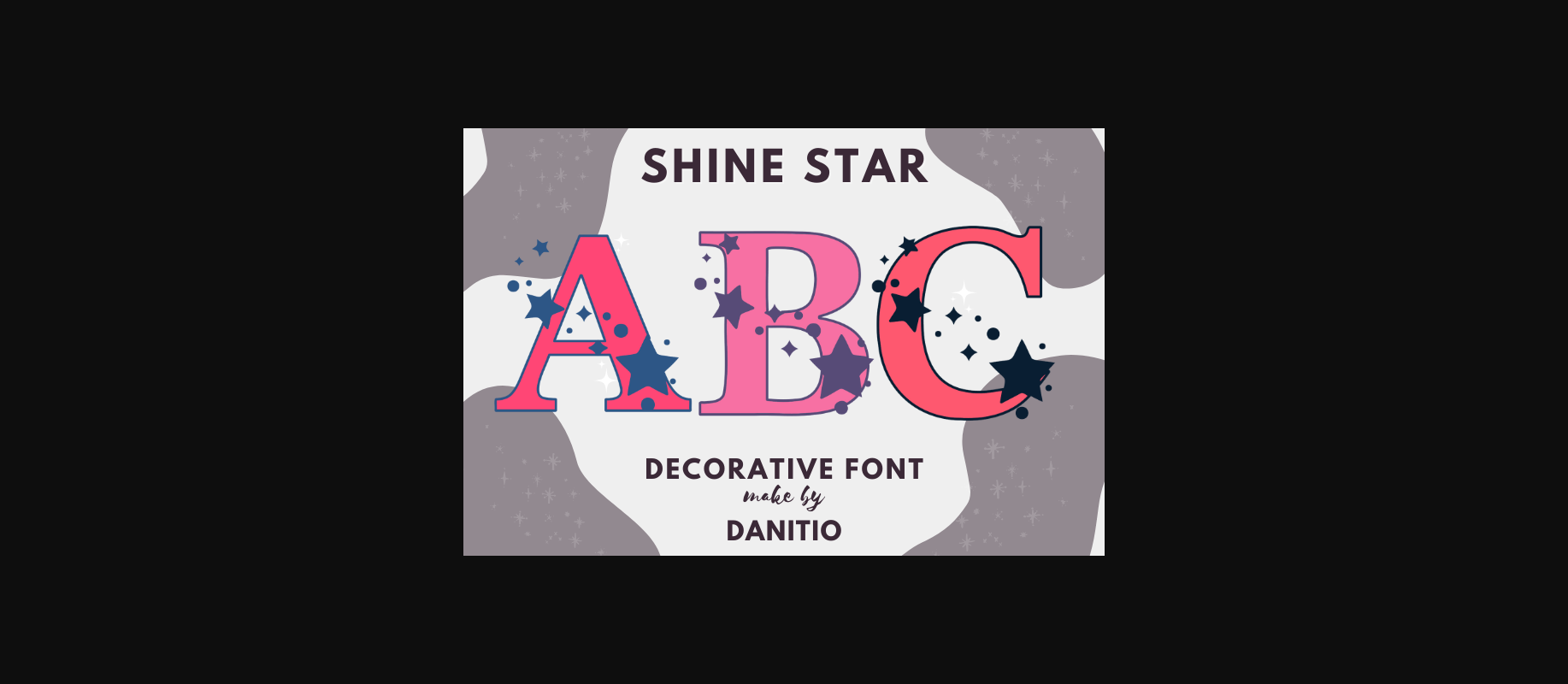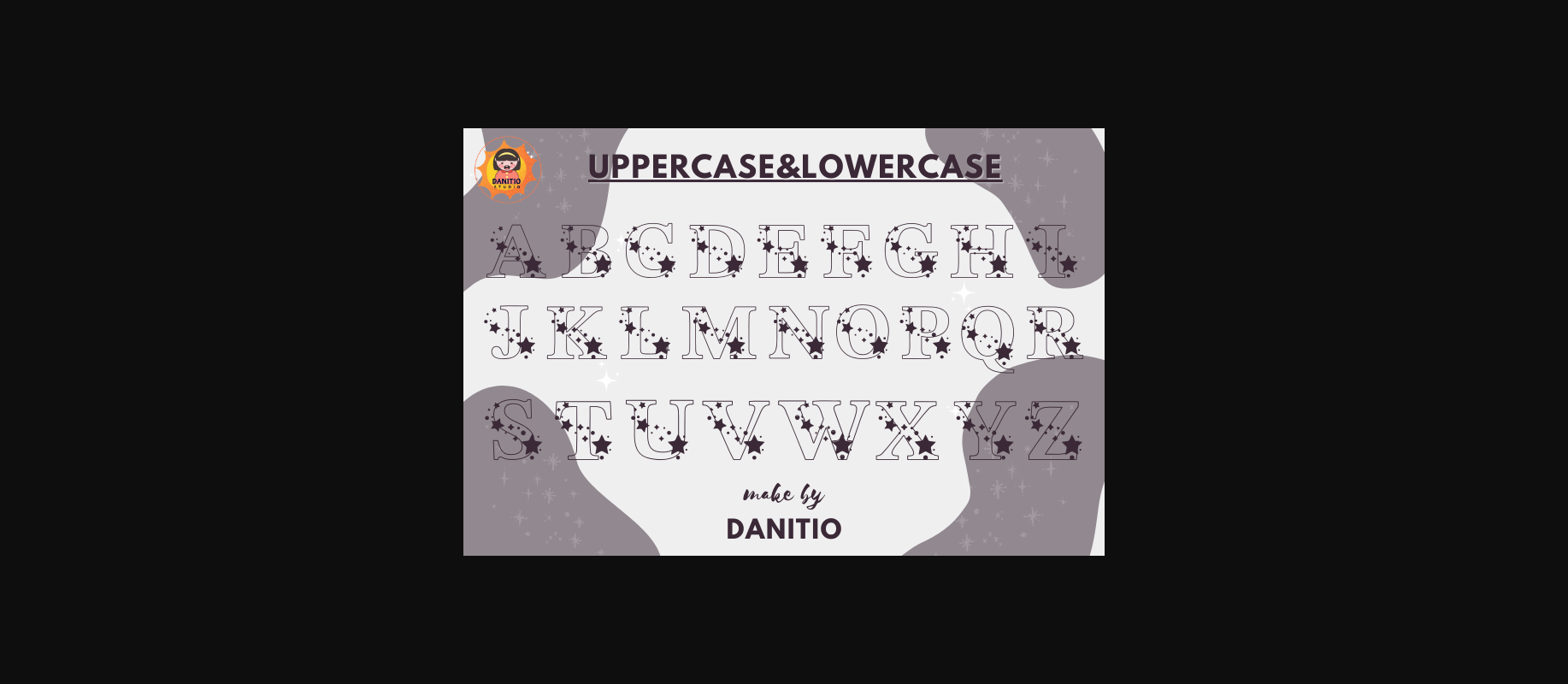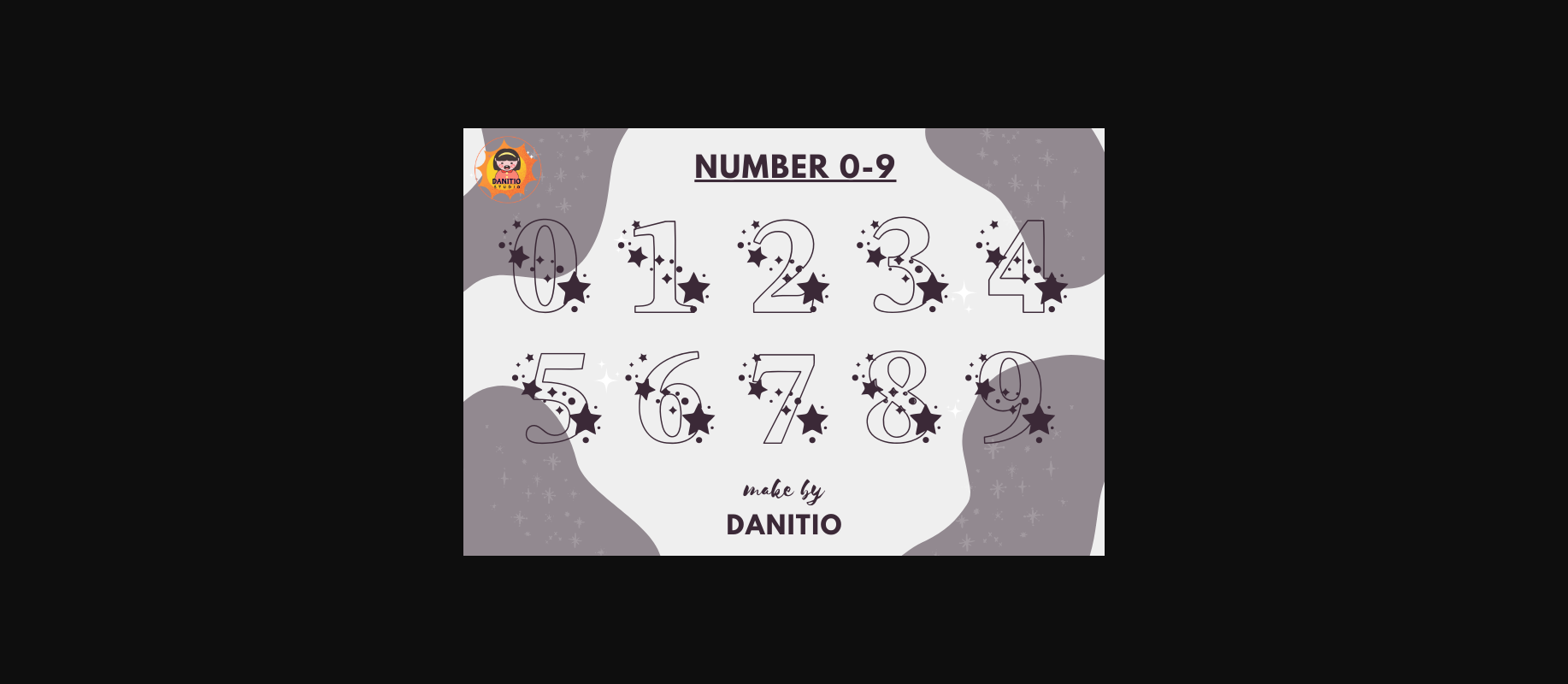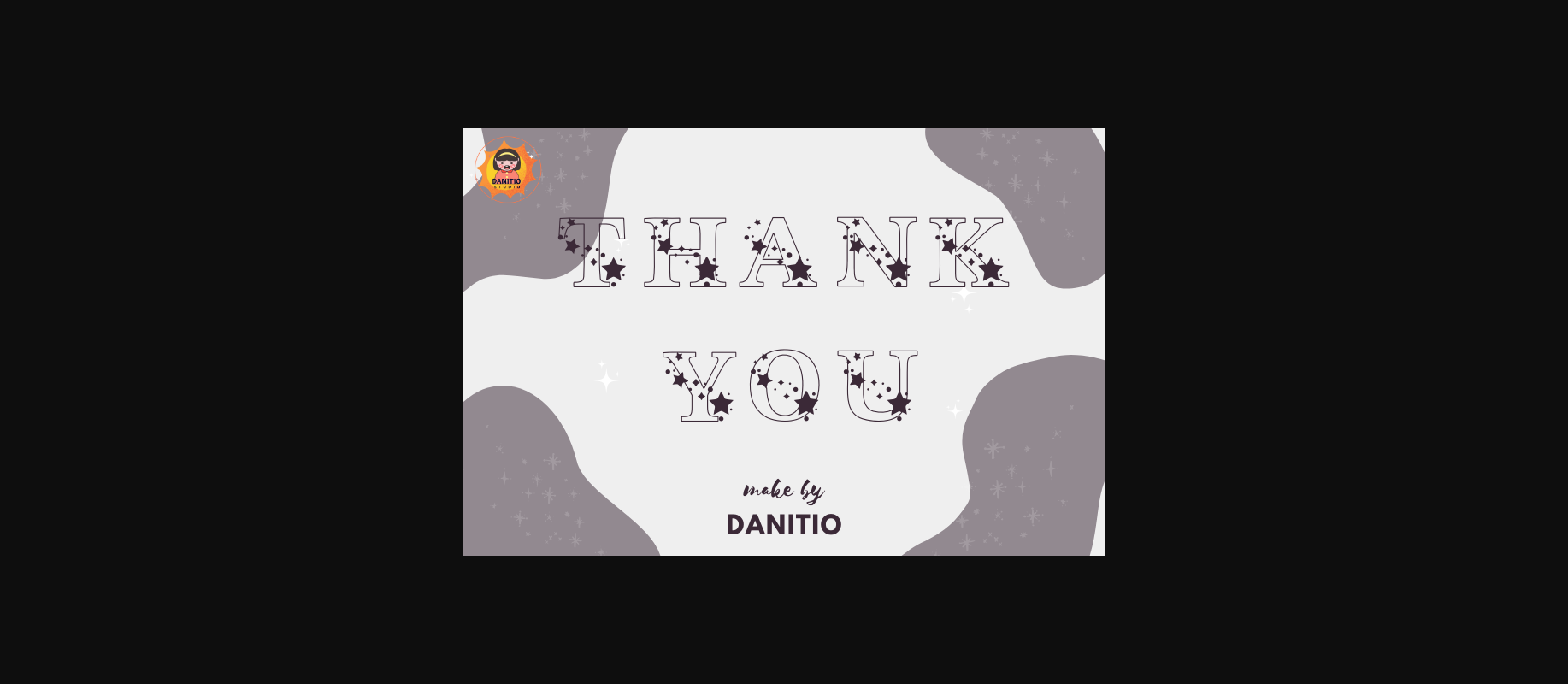
Shine Star Font
About Shine Star Font
Shine Star is a decorative font that adds uniqueness and charm to any design! With its friendly and cute appearance, this font will brighten up any design.